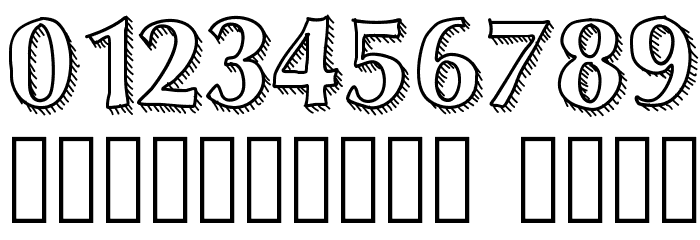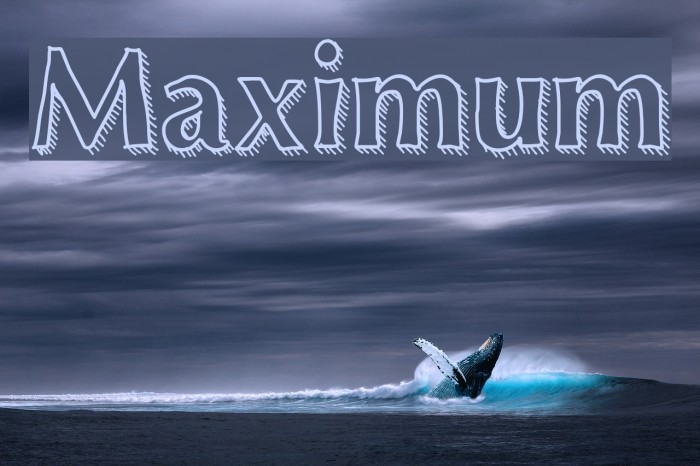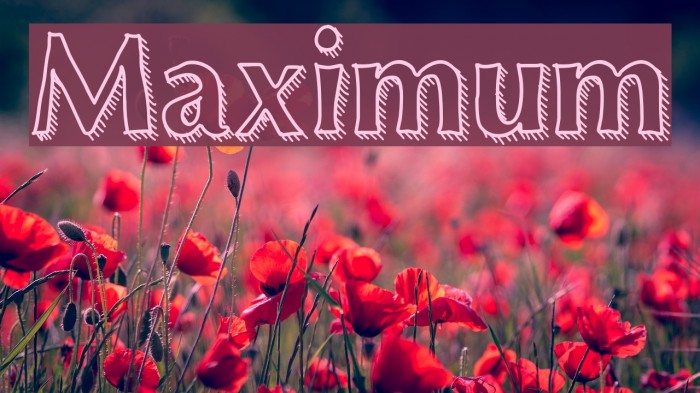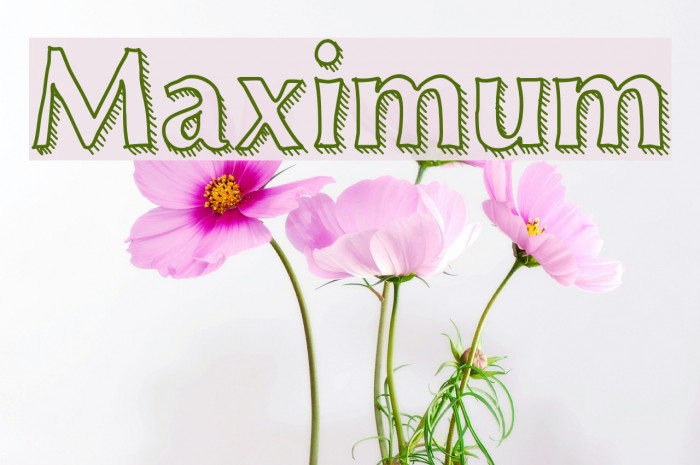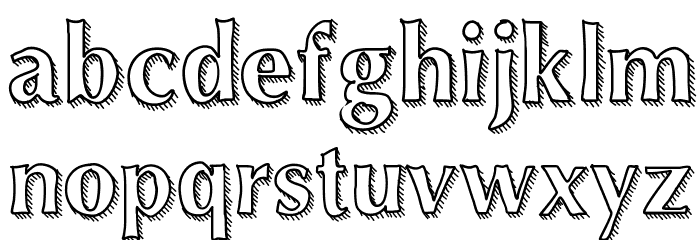
Maximum Font
Maximum Description
This font features a bold, decorative style with a unique hand-drawn appearance. Each character is outlined with a shadow effect, giving it a three-dimensional look. The uppercase and lowercase letters maintain a consistent design, with slight variations in stroke width that add to the playful and artistic feel. The numbers and special characters follow the same stylistic approach, ensuring uniformity across all glyphs. This font's distinctive style makes it ideal for creative projects that require a touch of whimsy and flair.
A bold, decorative font with a hand-drawn, shadowed style from Cartoon fonts.
- Proposed Projects: Ideal for posters, logos, children's books, and creative branding projects.